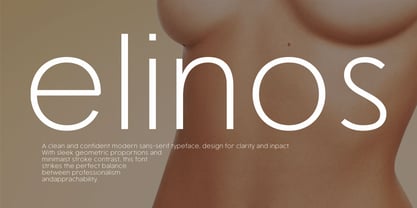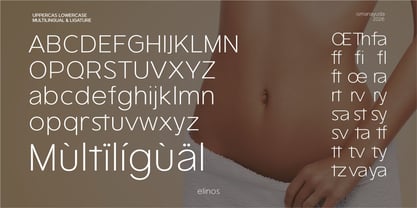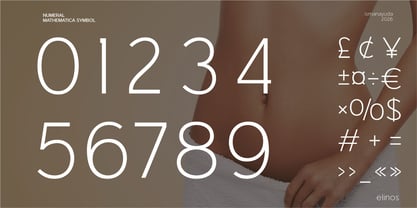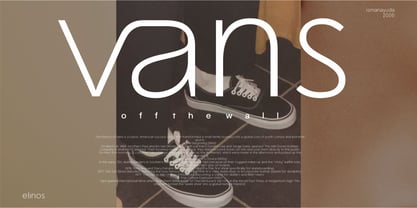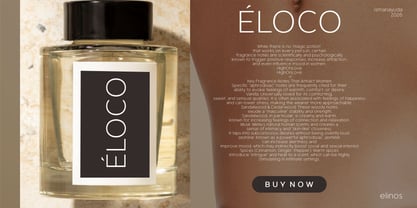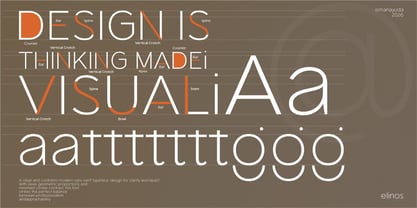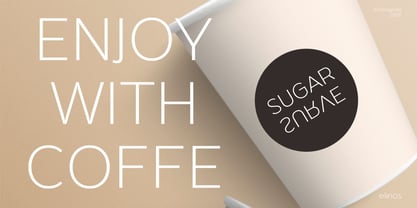
Elinos
"elinos" written in a massive, ultra-light lowercase format. The letters feature uniform stroke weights, perfect geometric curves, and elongated vertical lines that give the text an elegant, airy presence. Below this focal word, a block of smaller descriptive copy is cleanly aligned to the left. The text explicitly describes the typeface as a modern, minimalist sans-serif designed for clarity, impact, and a balanced mix of professionalism and approachability. The layout relies on high contrast and ample negative space to maintain a sophisticated, high-fashion aesthetic.
• Upercase
• Lowercase
• Fungtional
• Numeral
• Symbol
• Lygature